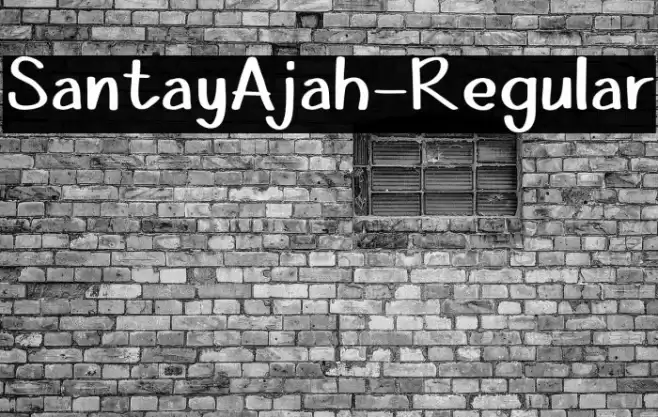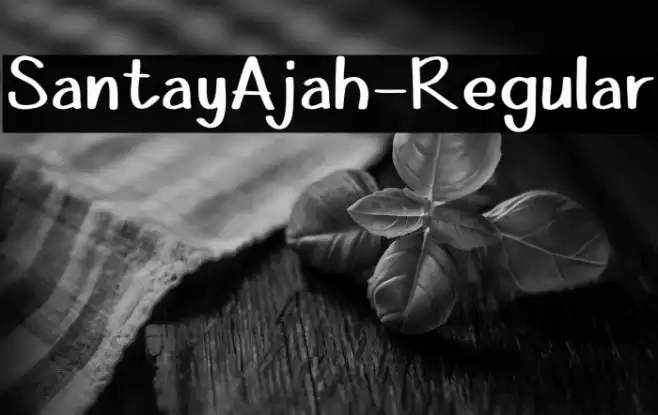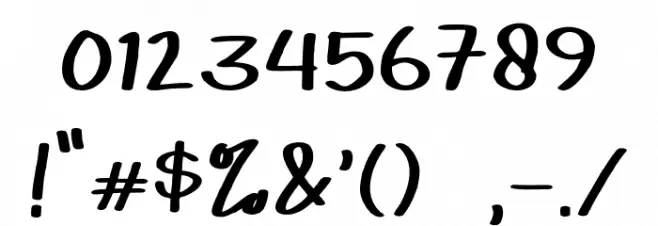
SantayAjah-Regular Font
SantayAjah-Regular Description
This font features a playful and casual handwritten style, characterized by its smooth, flowing lines and slightly irregular shapes that give it a personal touch. The uppercase letters are bold and rounded, while the lowercase letters maintain a consistent flow with a slightly more condensed form. Numbers and special characters are crafted with the same playful aesthetic, ensuring a cohesive look across all text. The font's informal and friendly appearance makes it ideal for projects that require a personal or approachable feel.
A playful, handwritten font with smooth, flowing lines and a casual style from Regular fonts.
- Proposed Projects: Ideal for greeting cards, invitations, personal branding, social media graphics, and children's books.
- Overall Style: Casual, Playful
- Use Case: Headlines, Logos, Informal Text